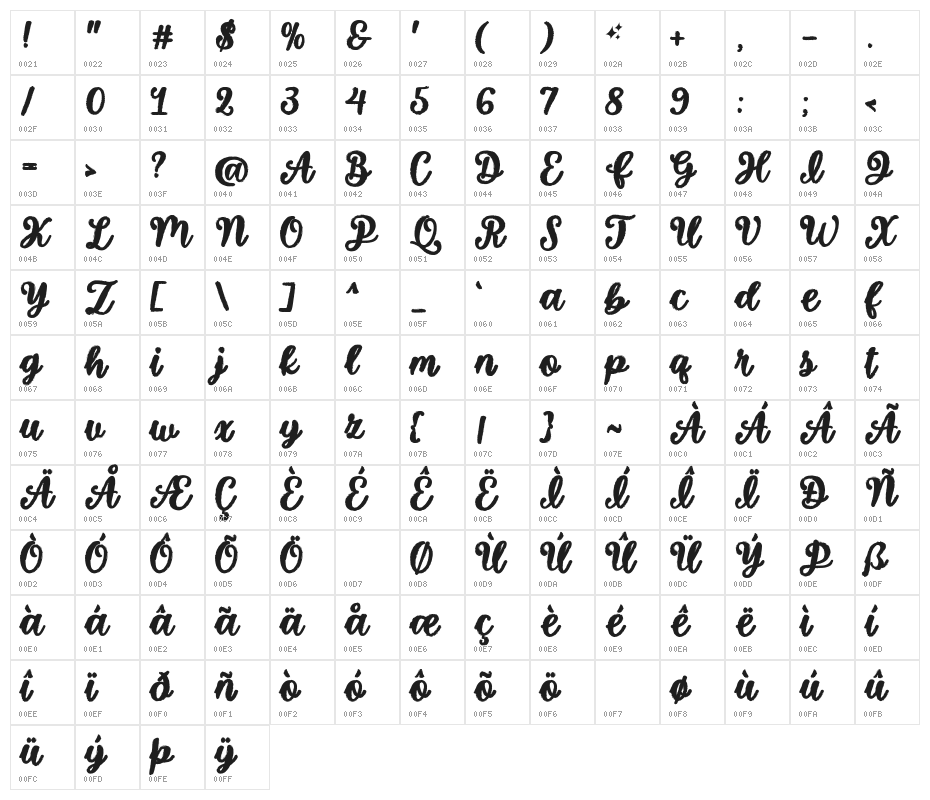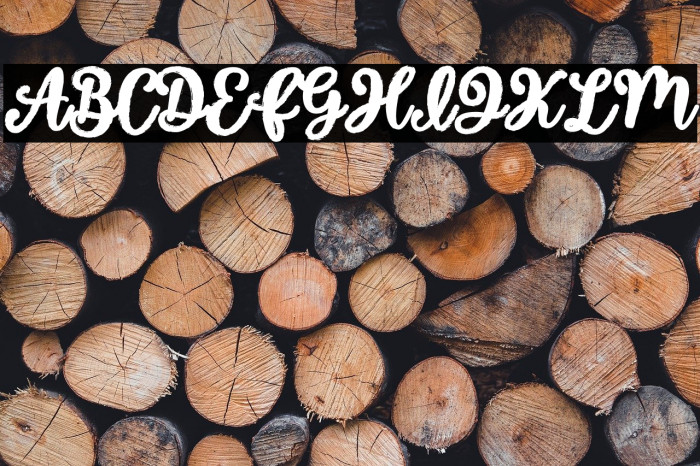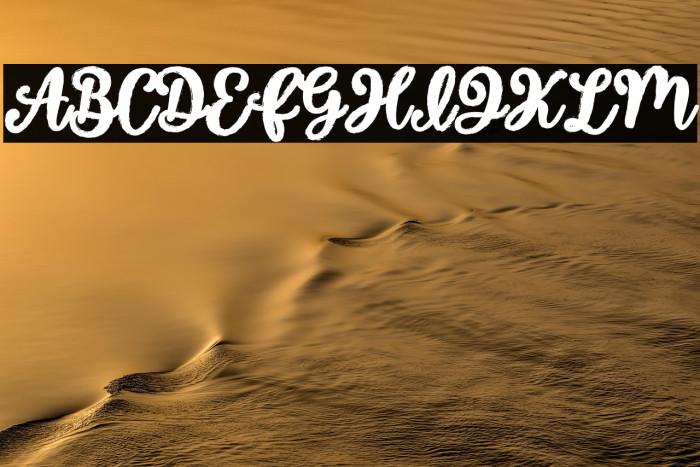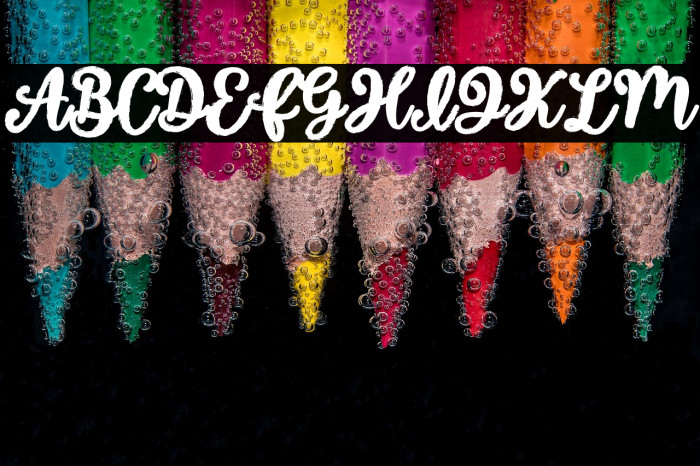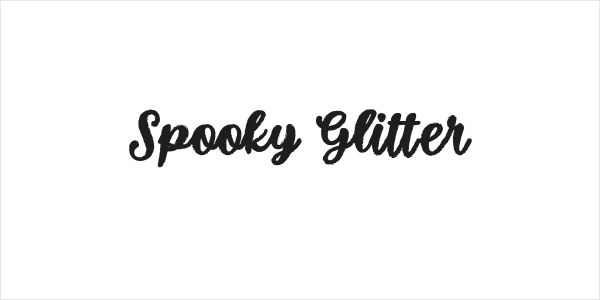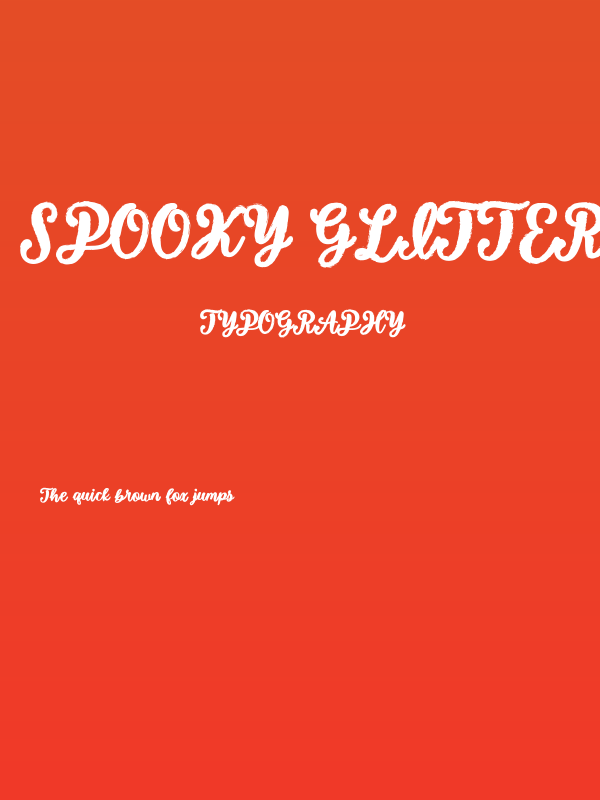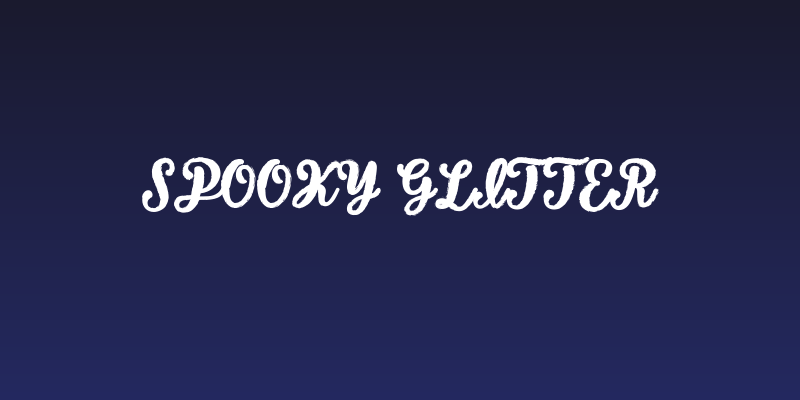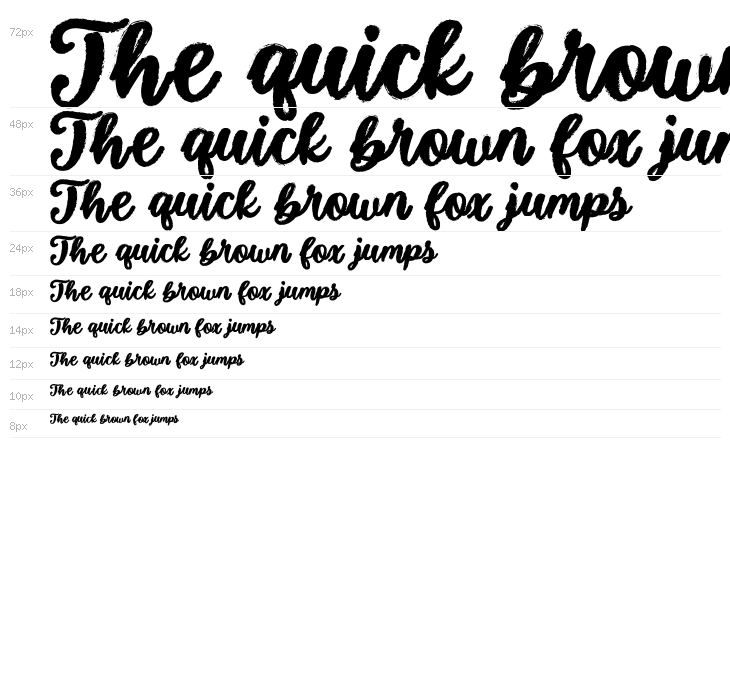
Spooky Glitter Font
Spooky Glitter Description
This font features a playful and whimsical script style with a glittery texture that adds a touch of sparkle to each character. The letters are connected in a flowing manner, reminiscent of handwriting, which gives it a personal and inviting feel. The uppercase letters maintain a consistent height, while the lowercase letters have a slight variation in size, adding to the font's charm. The numbers and special characters are designed to match the overall style, ensuring a cohesive look across all text. This font is perfect for projects that require a fun and lively aesthetic.